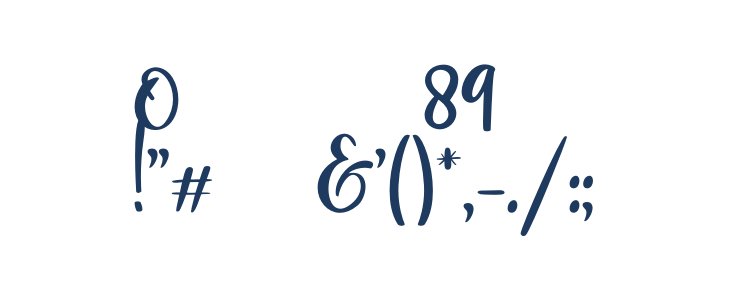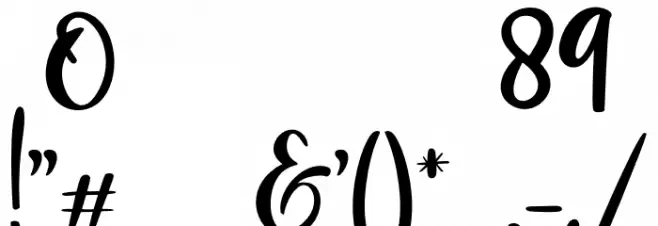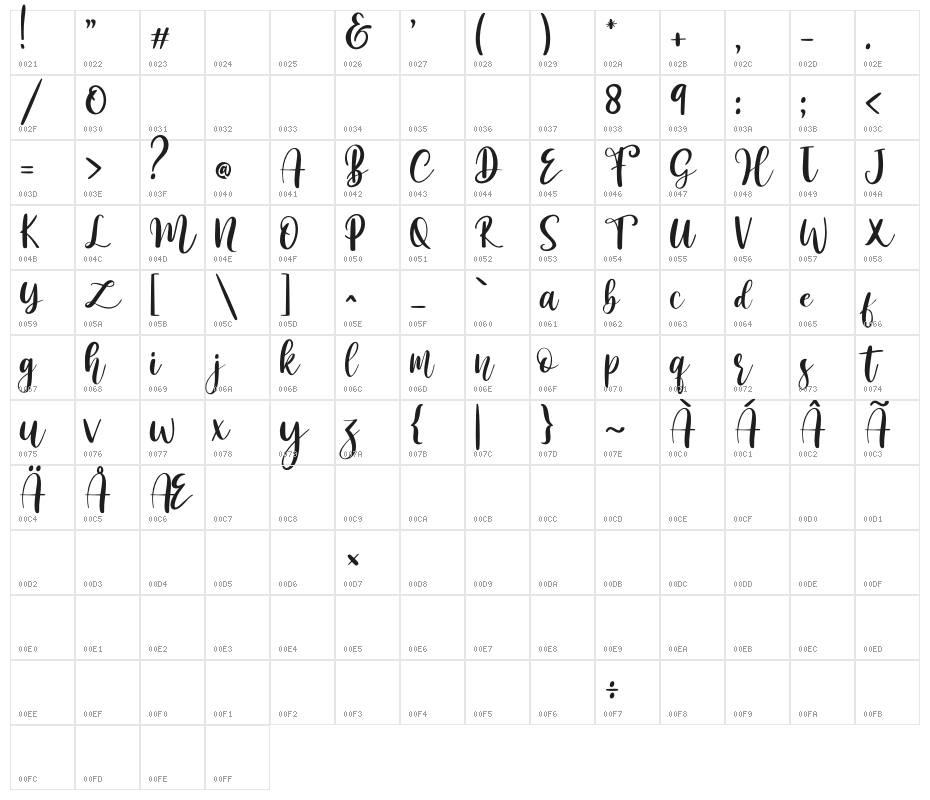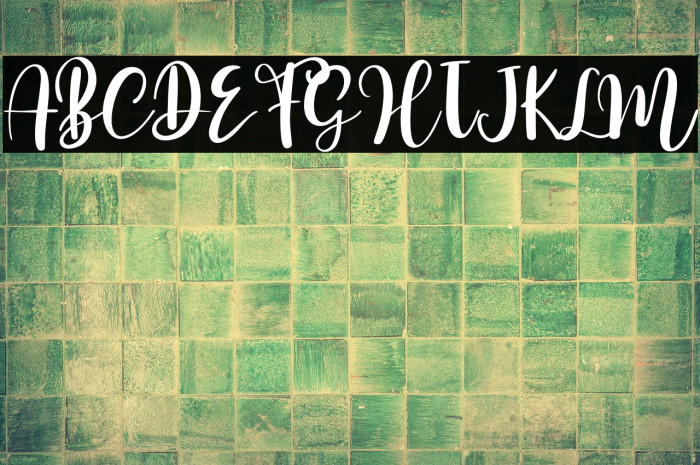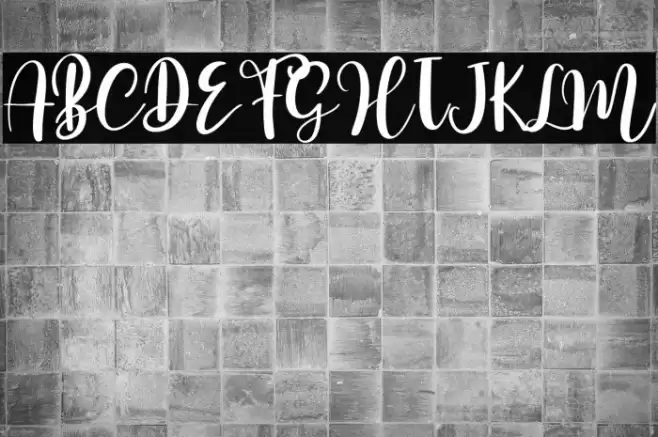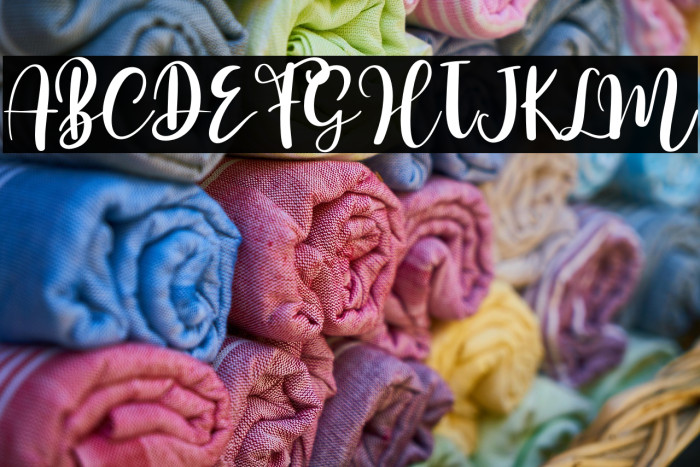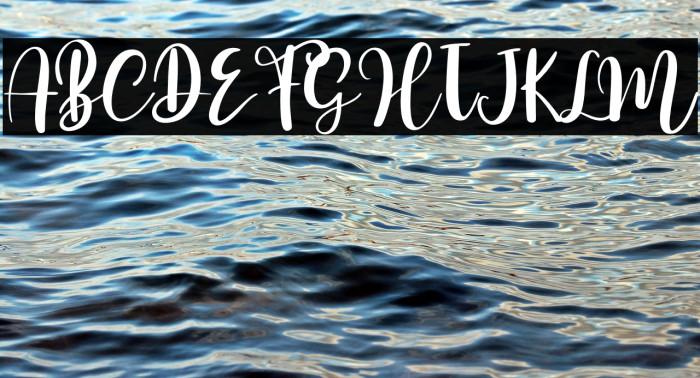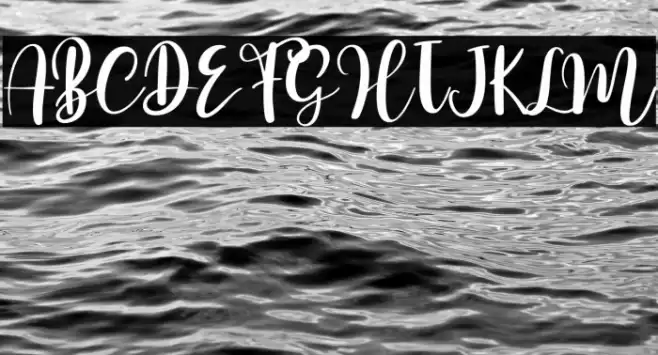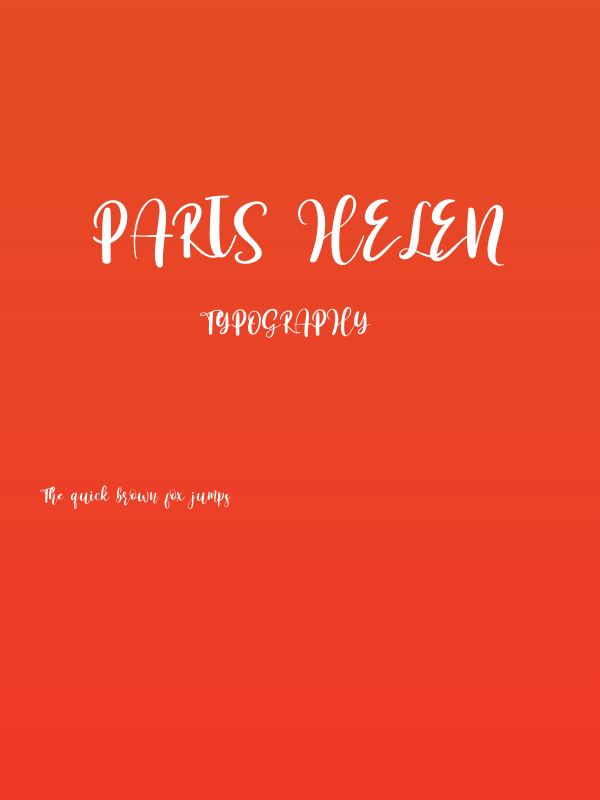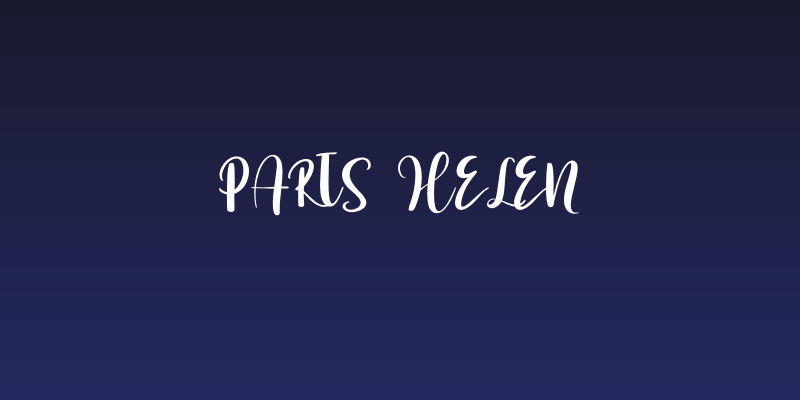
paris helen Font
paris helen Description
This font features an elegant and flowing script style, characterized by its smooth, cursive strokes and a sense of fluidity. The uppercase letters are bold and expressive, with sweeping curves and loops that give them a dynamic appearance. The lowercase letters maintain a consistent flow, with some characters extending below the baseline, adding to the font's graceful aesthetic. The numbers are bold and slightly rounded, complementing the overall style. Special characters are designed with the same attention to detail, ensuring they blend seamlessly with the alphabet. This font exudes a sense of sophistication and charm, making it ideal for projects that require a touch of elegance.